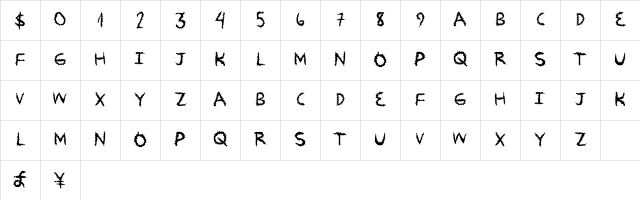
ZipDown Regular
Foundry: Xerographer Fonts
Designer: Xerographer Fonts Max Infeld
Design Context for ZipDown
ZipDown is a composed and adaptable typeface that performs quietly and consistently across a wide range of design contexts.